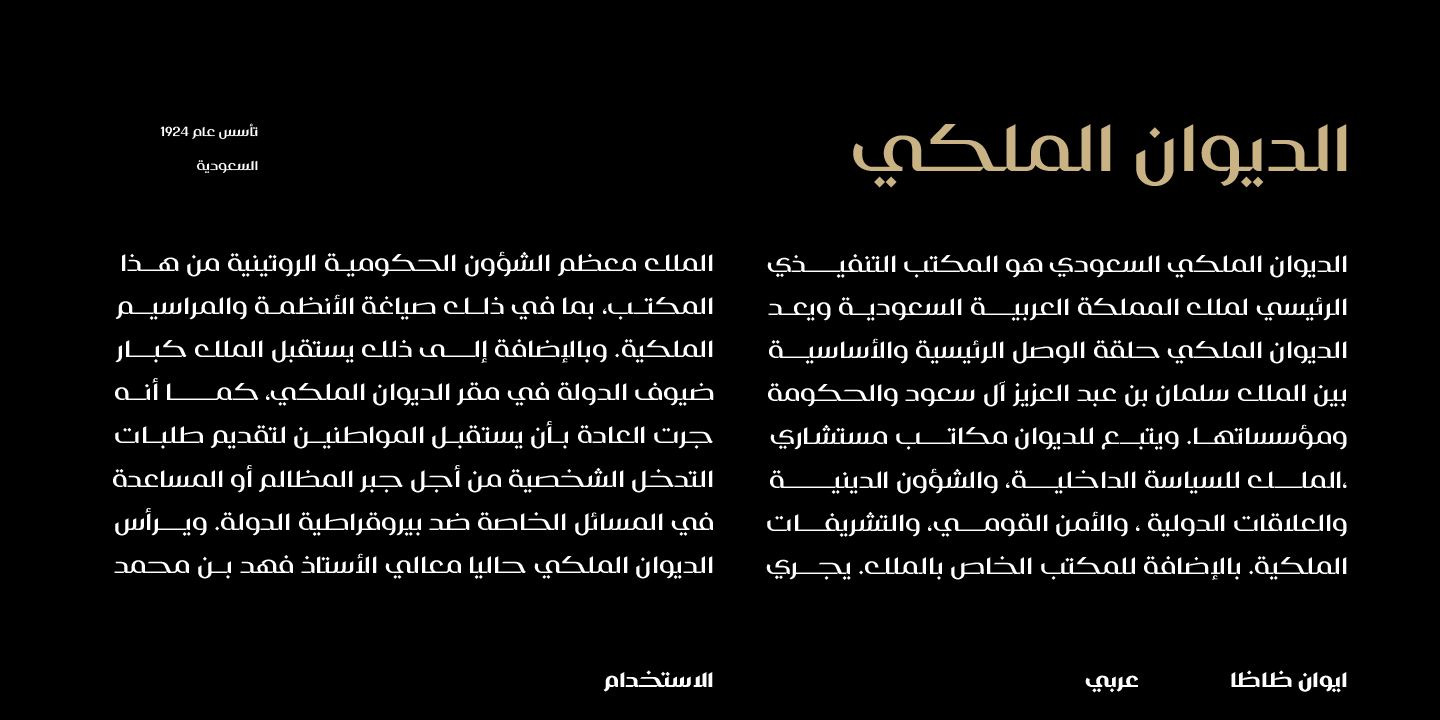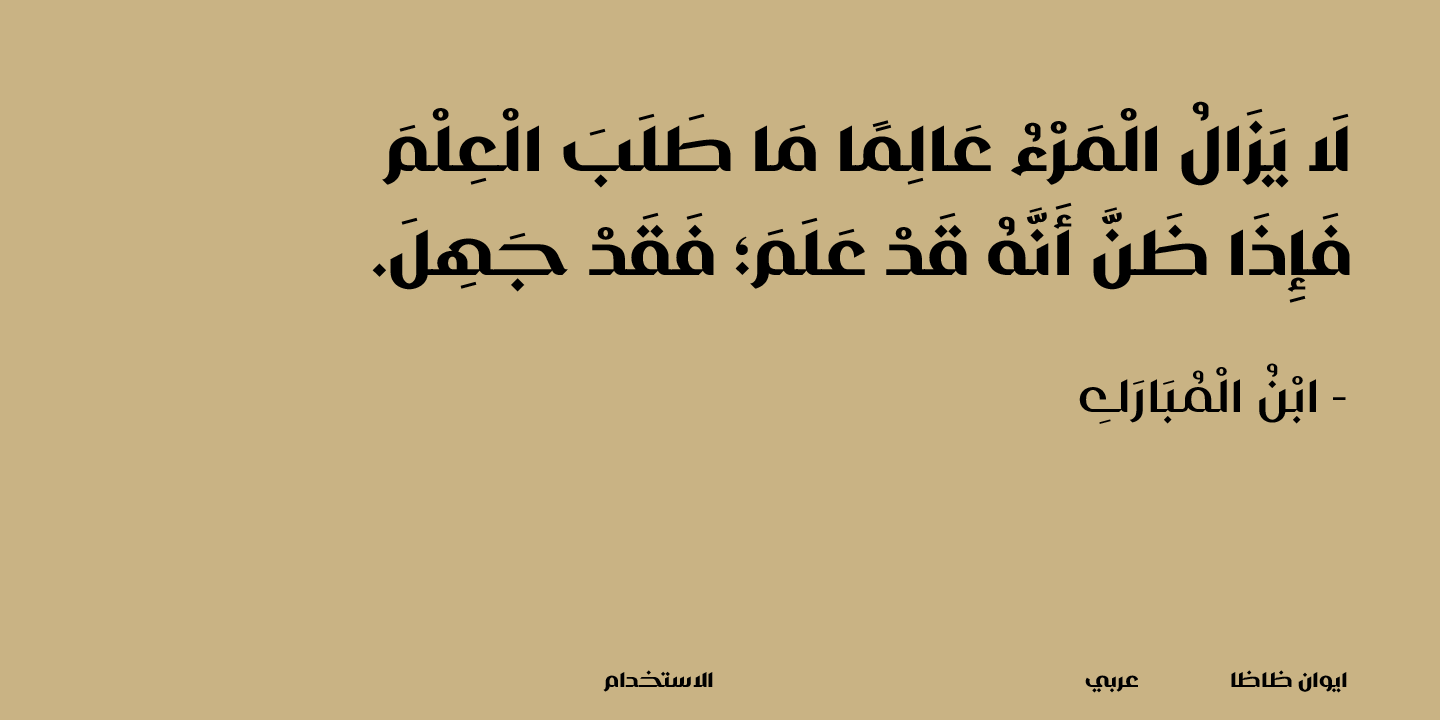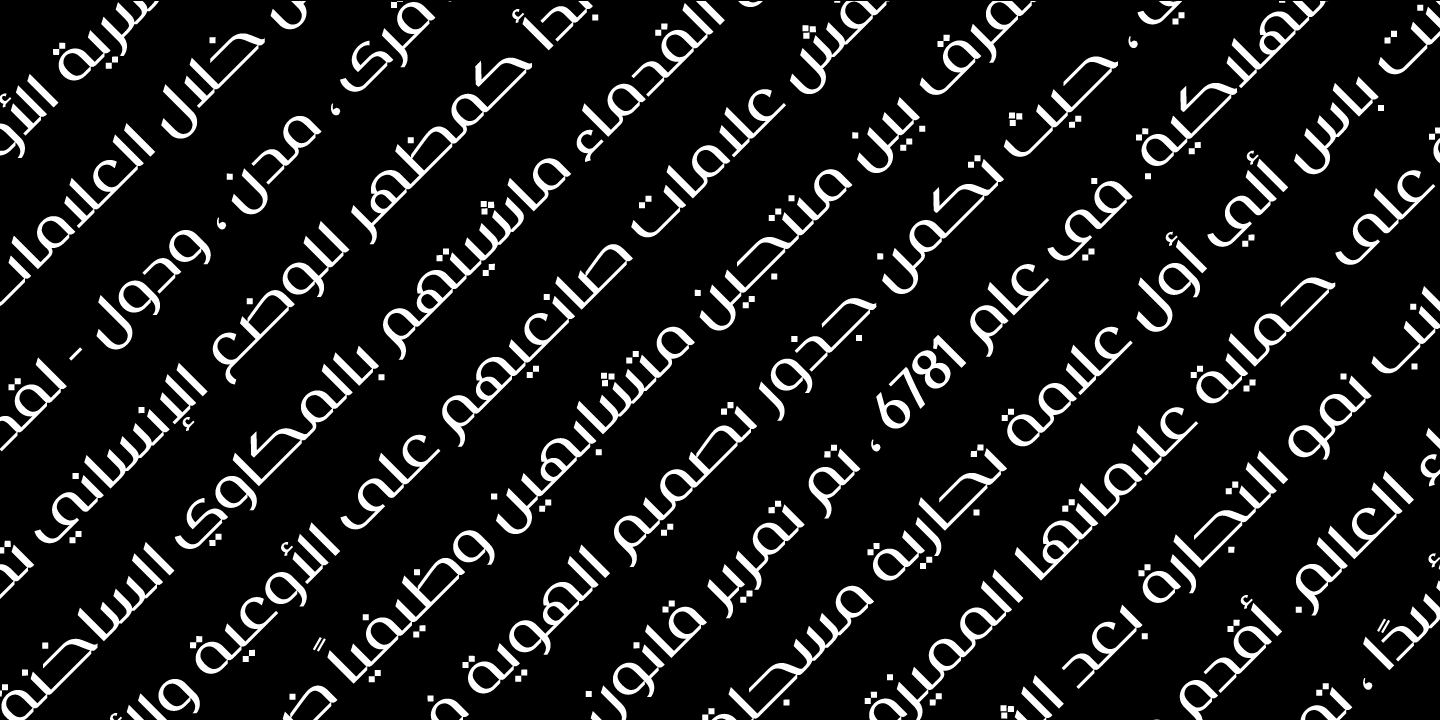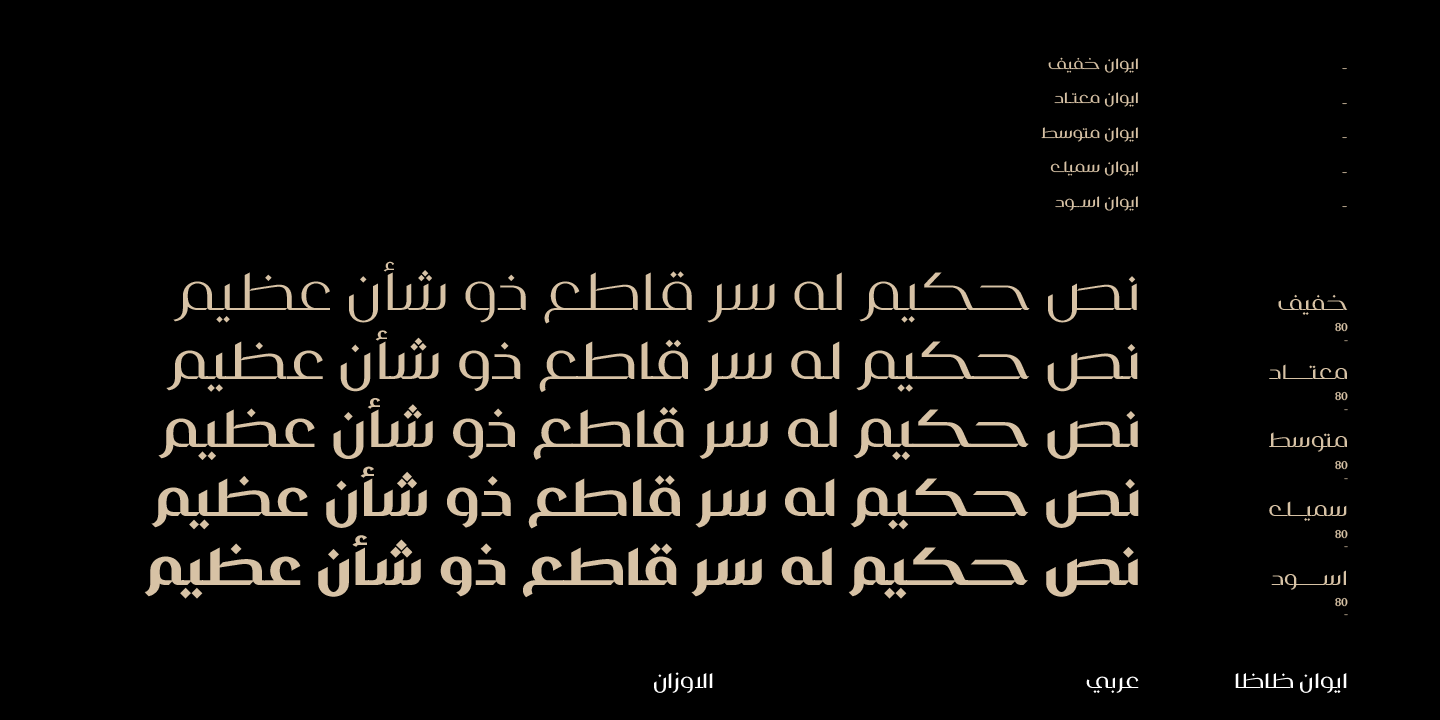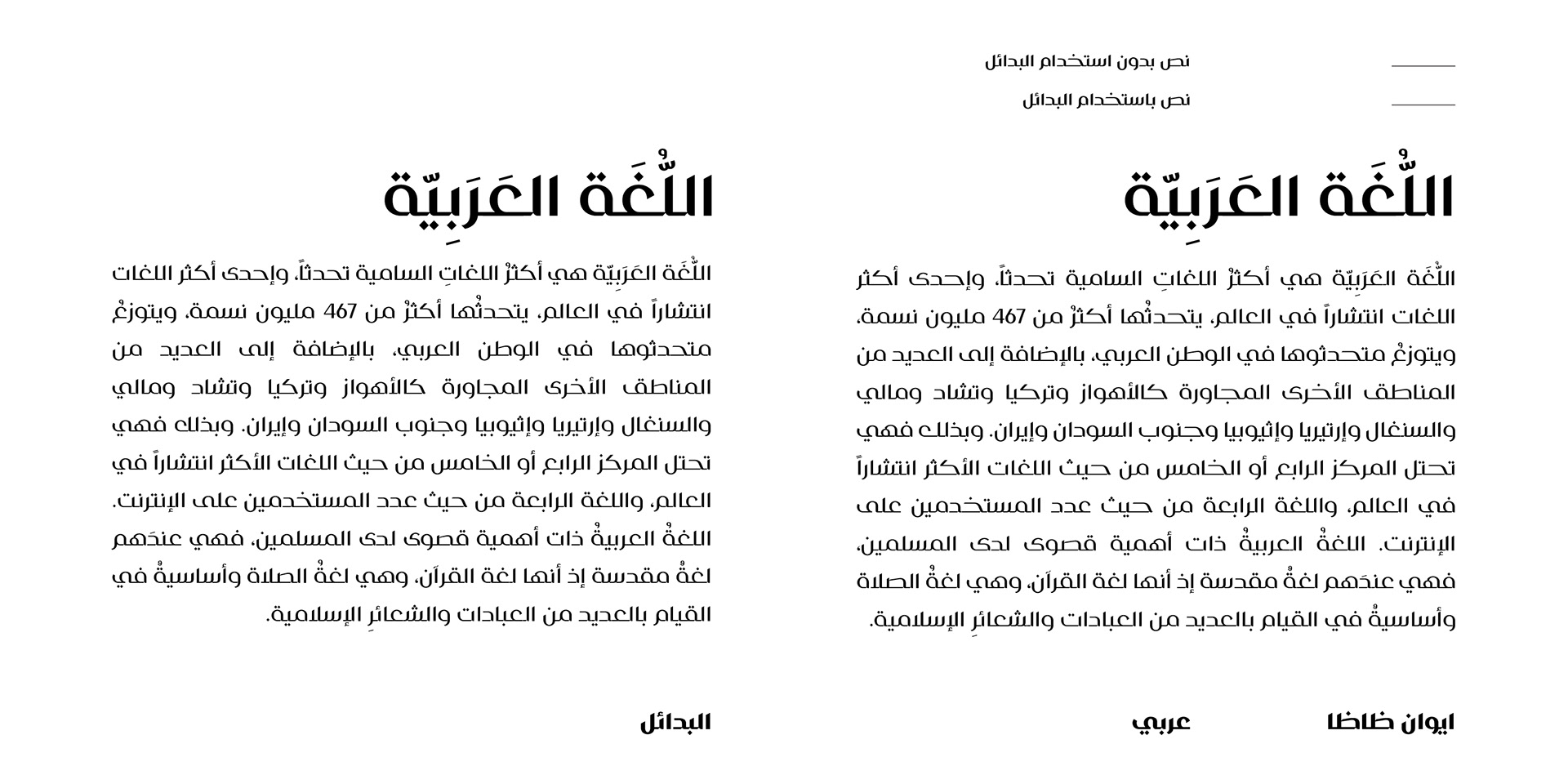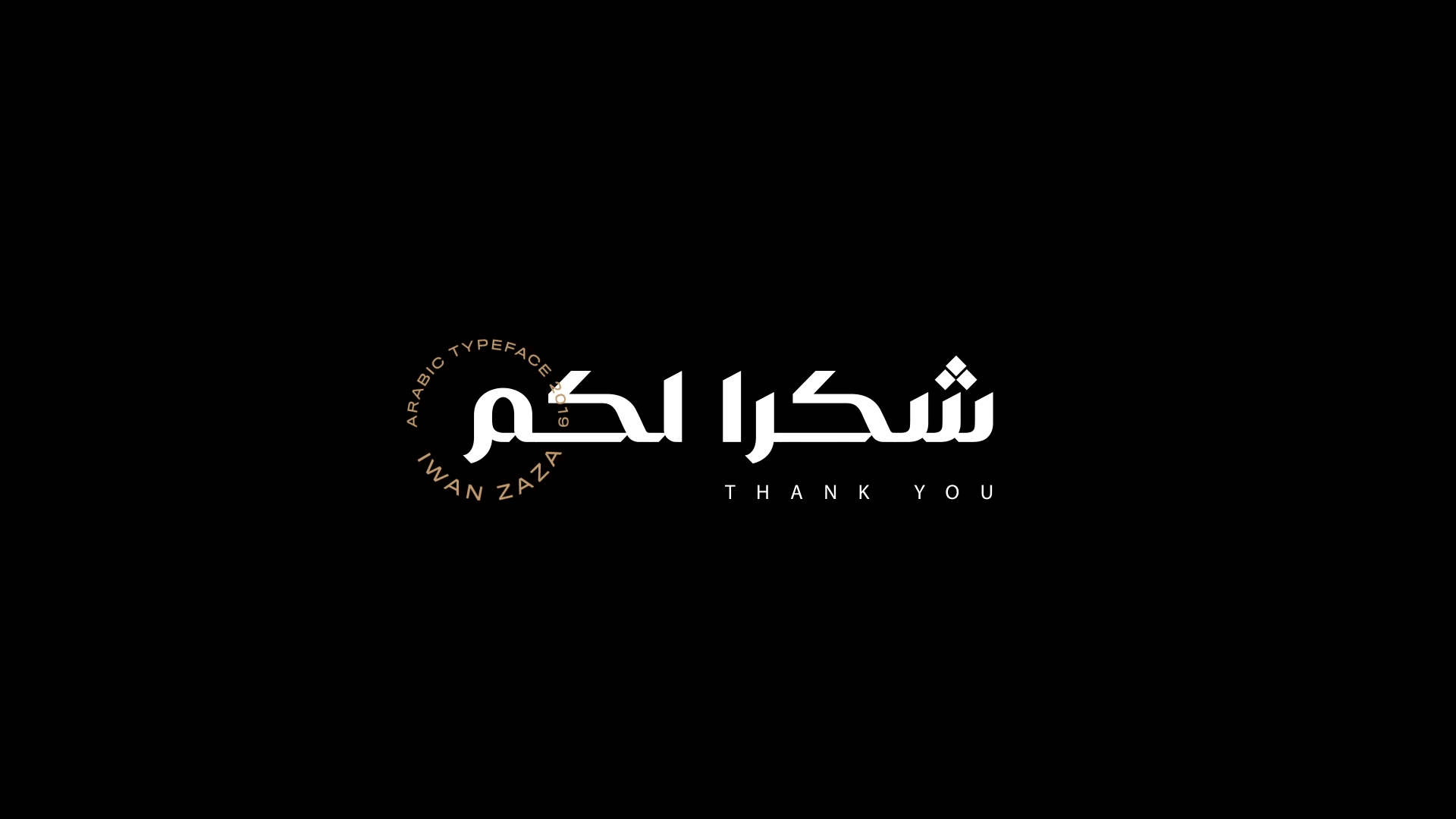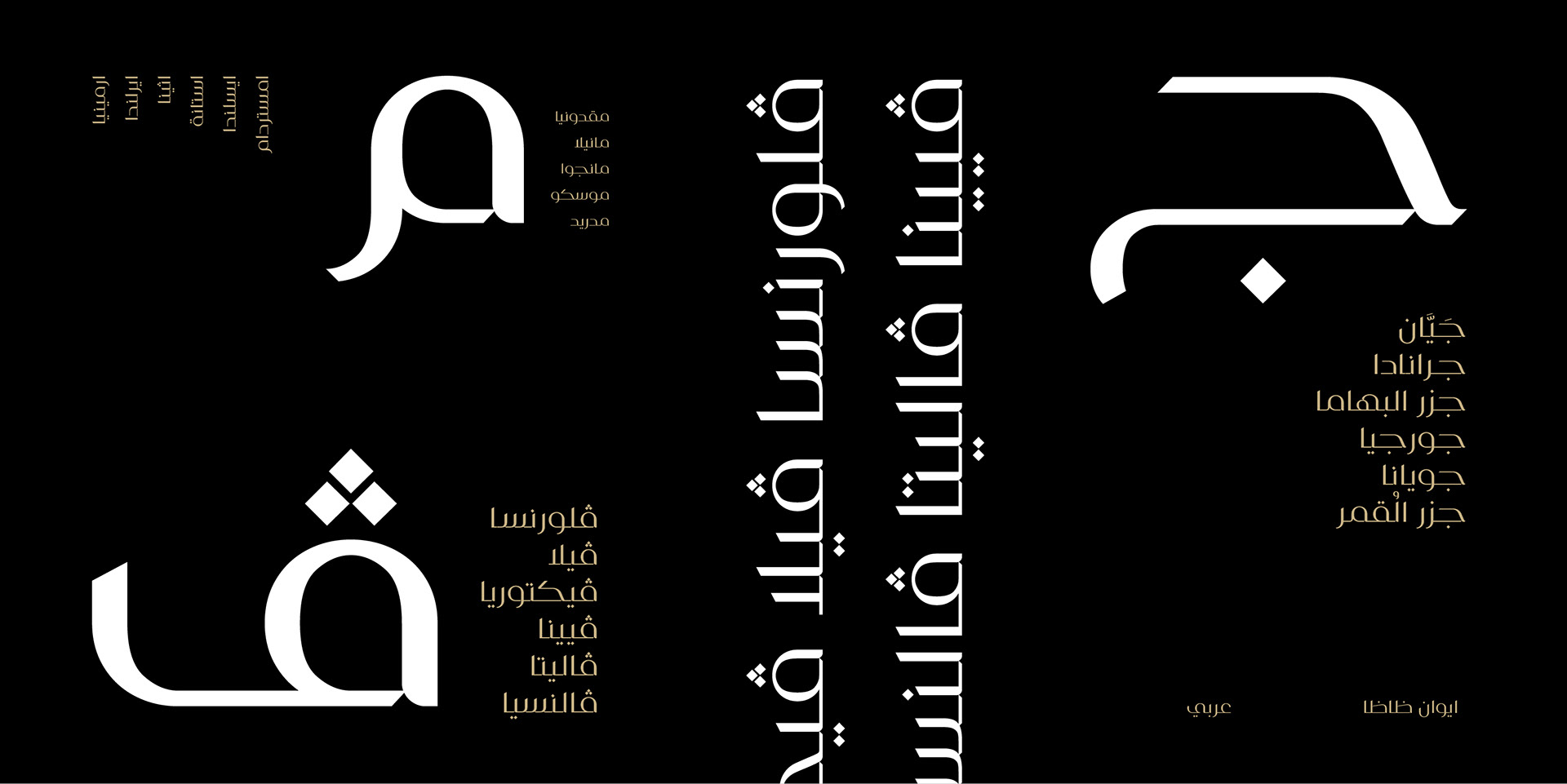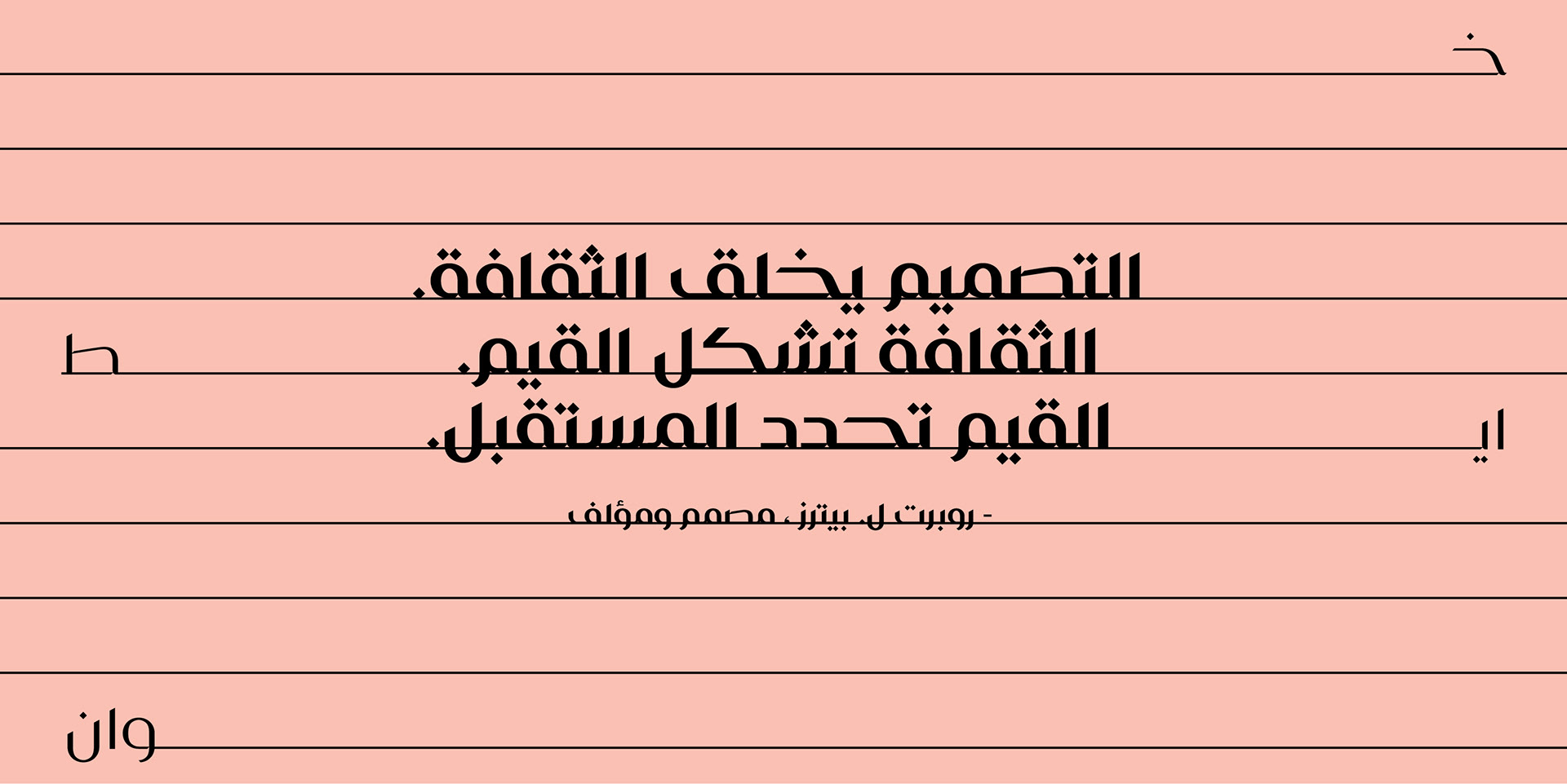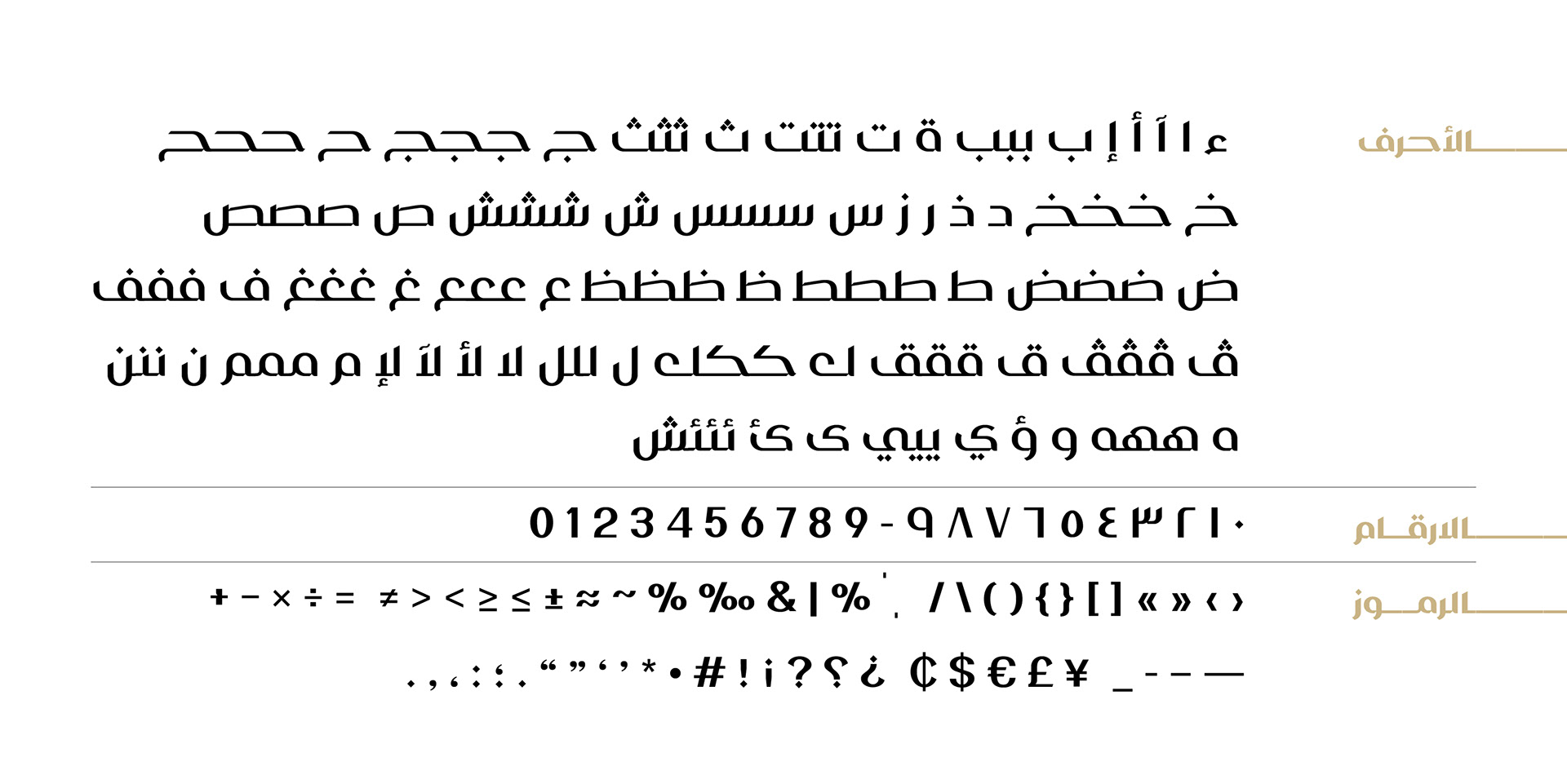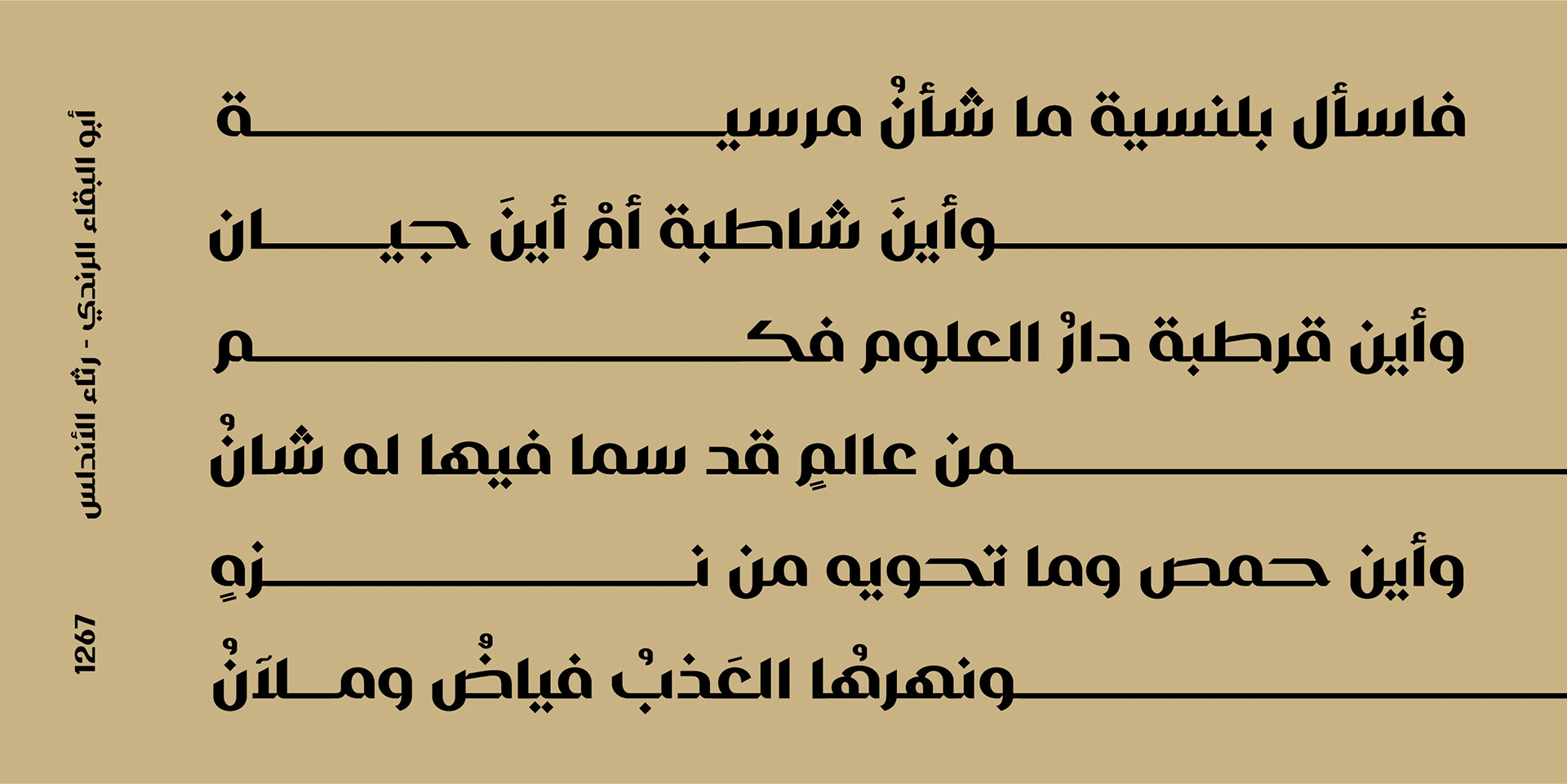
Iwan typeface
Iwan is a high-contrast modern Arabic typeface designed by Ahmed Zaza. the design is inspired by the Kufi calligraphic style and influenced by the Naskh style. Iwan balances classic and  contemporary tastes with wide open counters and short ascenders and descenders that minimize the hight. And has a high - contrast between the vertical and the horizontal to line up in harmony with Latin. And openType alternates and ligatures set. This makes it suitable for branding, editorial, packaging and advertising.
Iwan Features five weights from Light to Black, and supports OpenType features for Arabic, and has a wide glyph set.